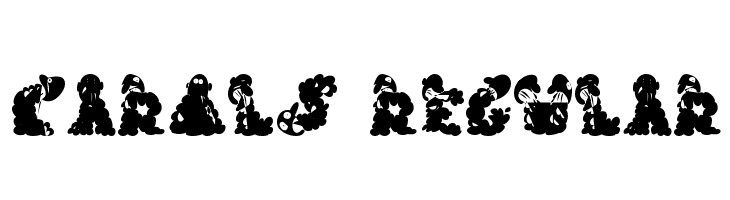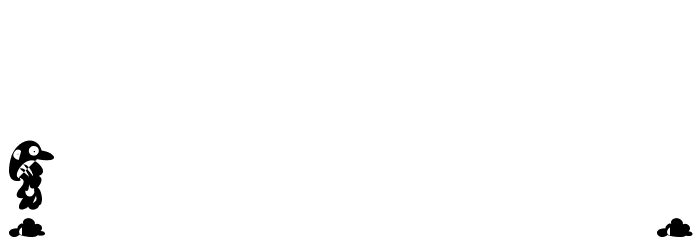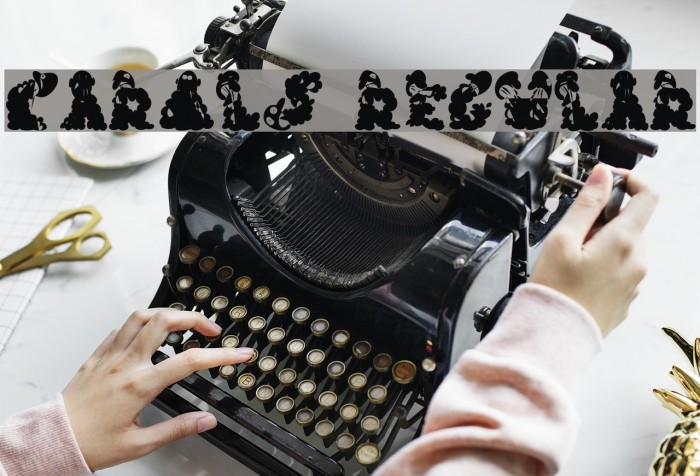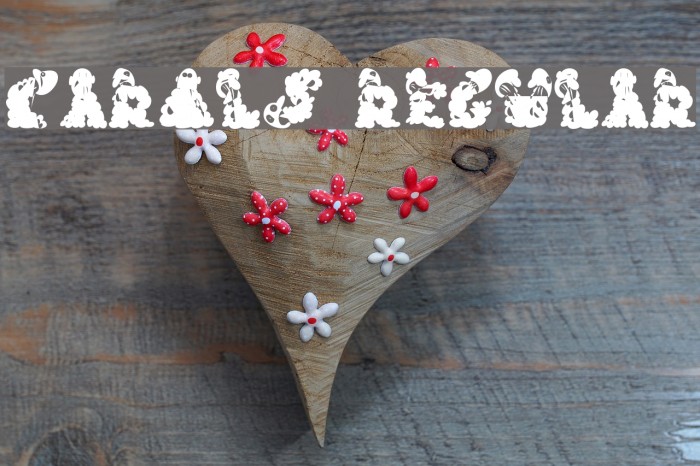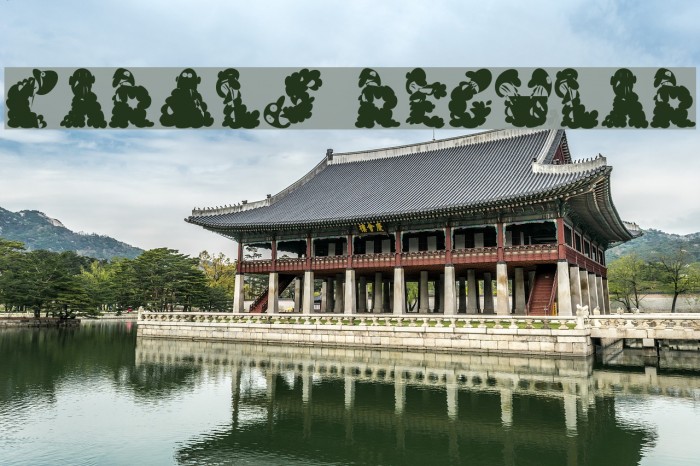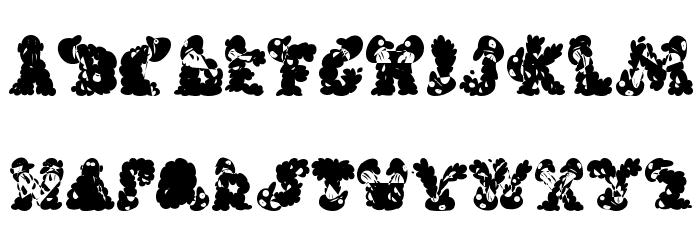
Carols Regular Font
Carols Regular Description
This font is a whimsical and decorative typeface featuring playful, organic shapes that resemble foliage and abstract forms. Each character is uniquely designed with intricate details, making it visually engaging and full of personality. The font's bold and artistic style is reminiscent of hand-drawn illustrations, with a strong emphasis on creativity and imagination. Its distinctiveness makes it stand out, capturing attention with its elaborate and ornate appearance. The font is ideal for projects that require a touch of fantasy and artistic flair, offering a unique visual experience.
| Proposed Projects | Ideal for children's books, greeting cards, posters, and creative branding projects. |